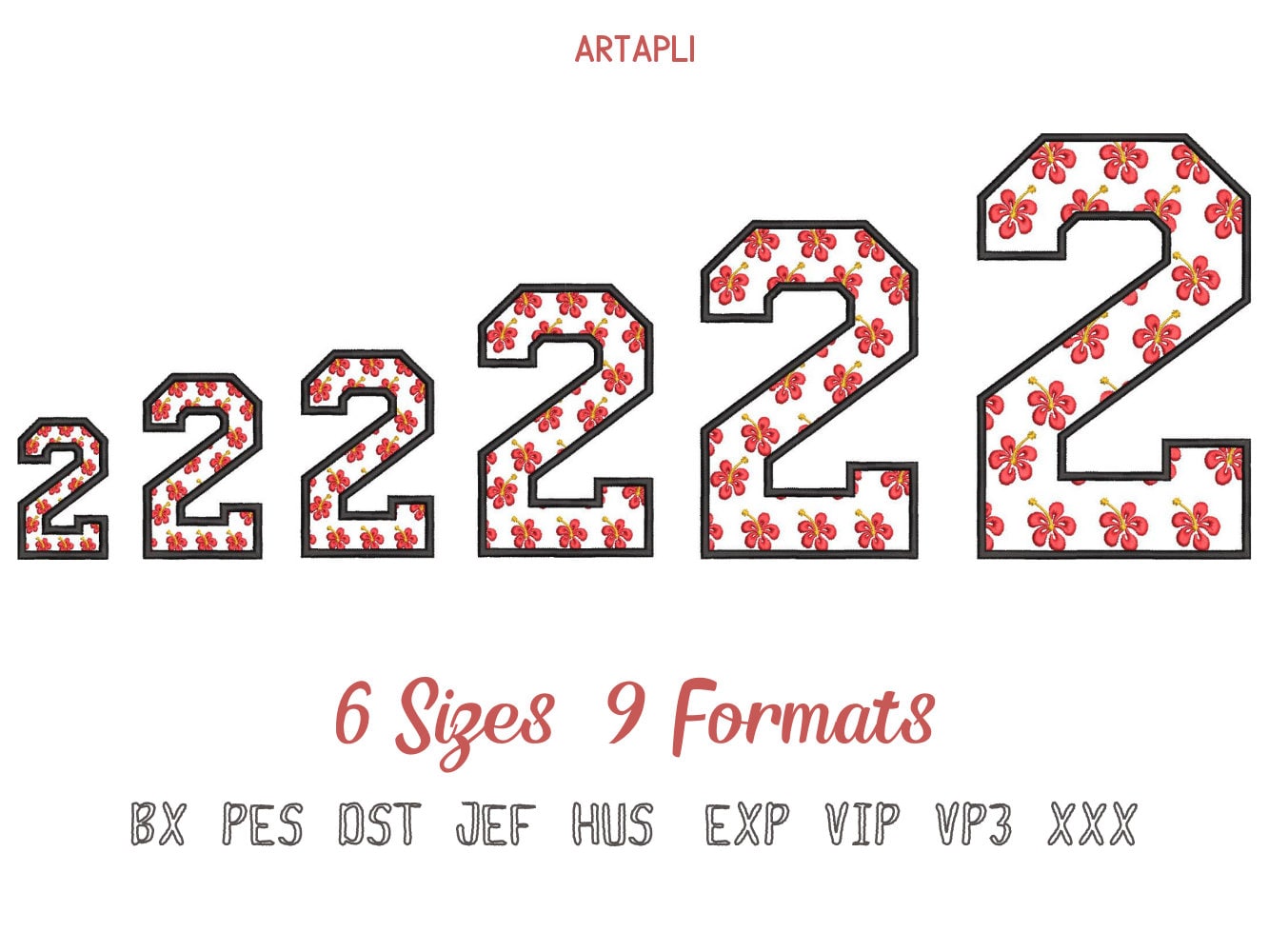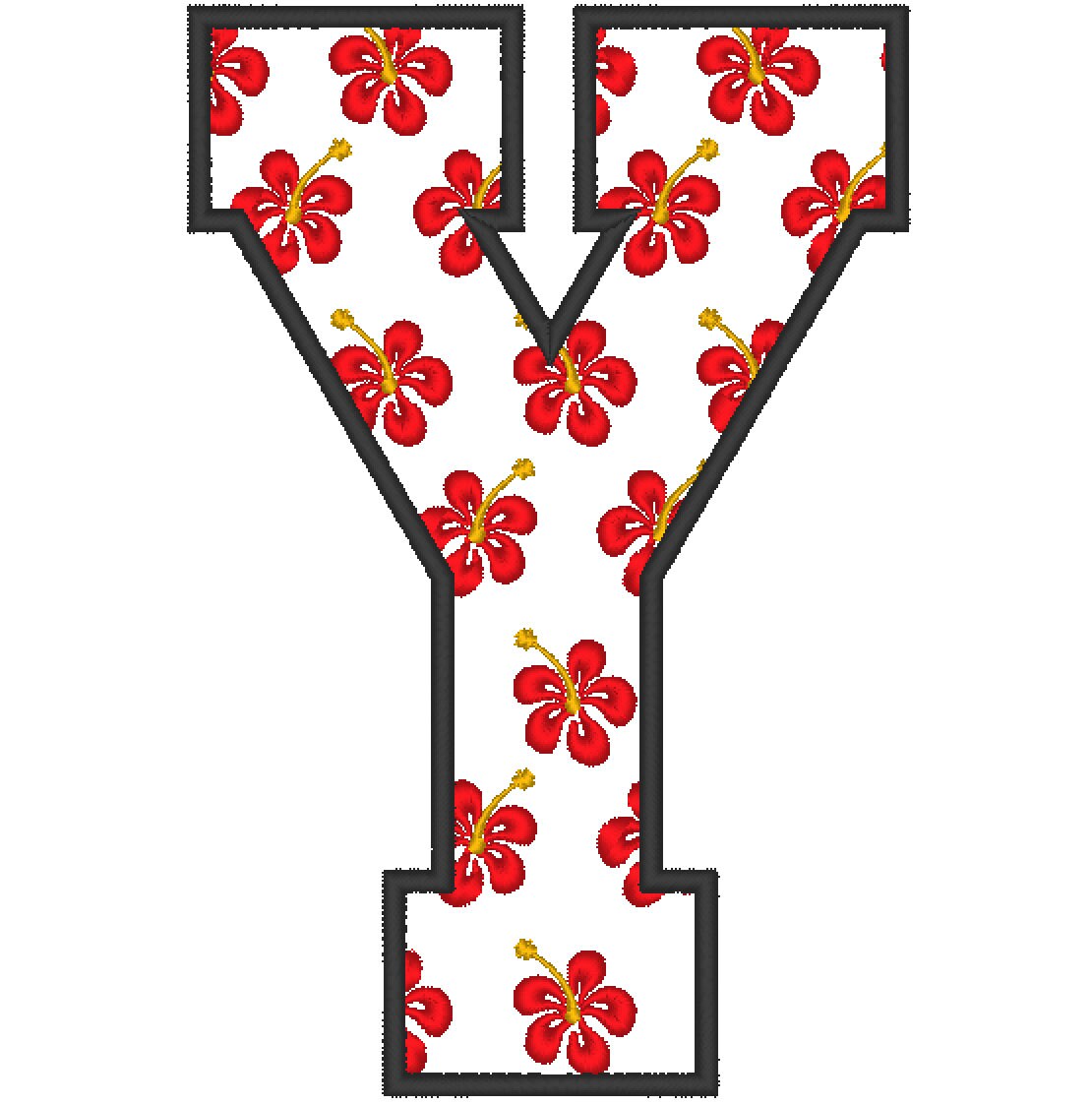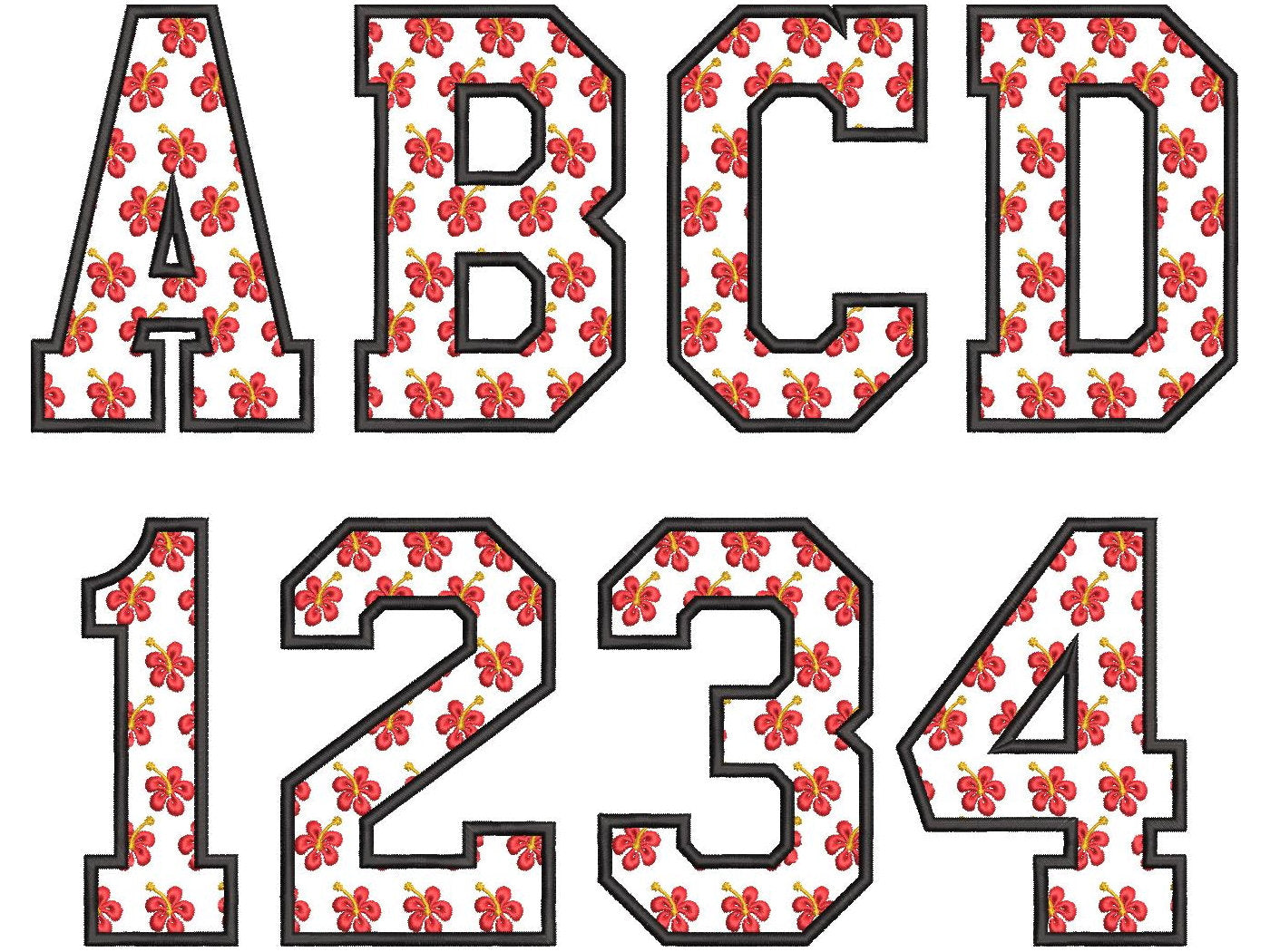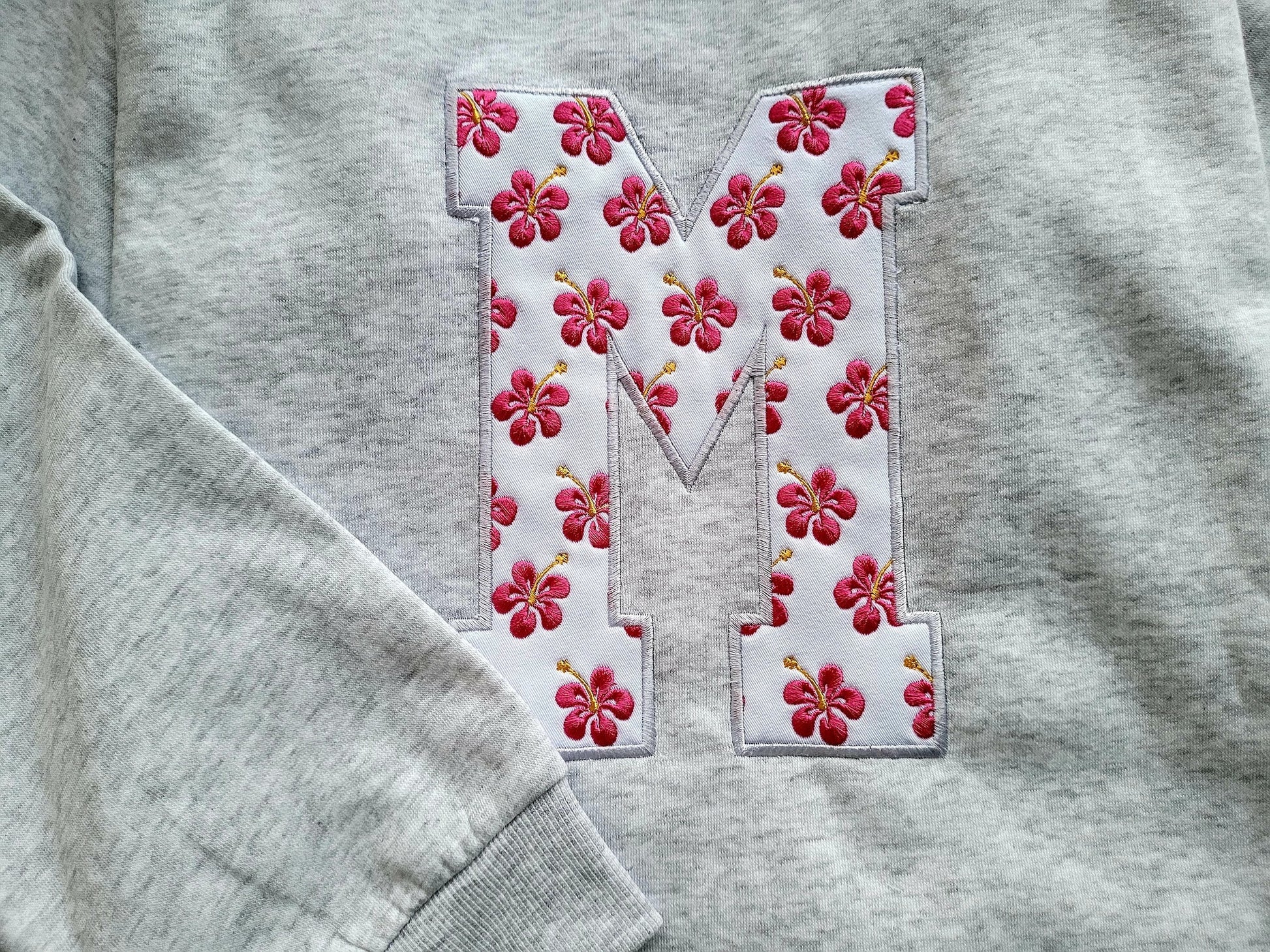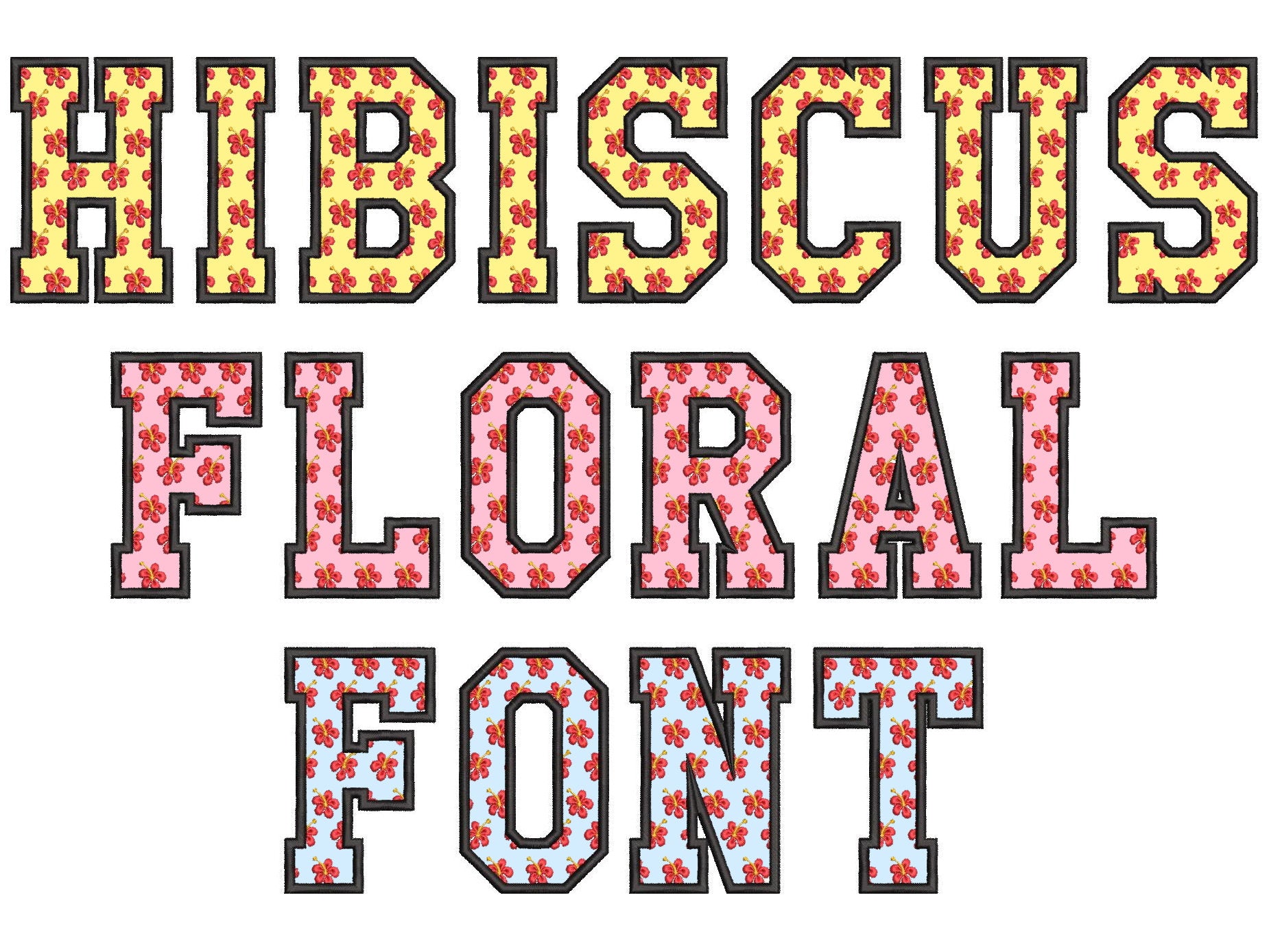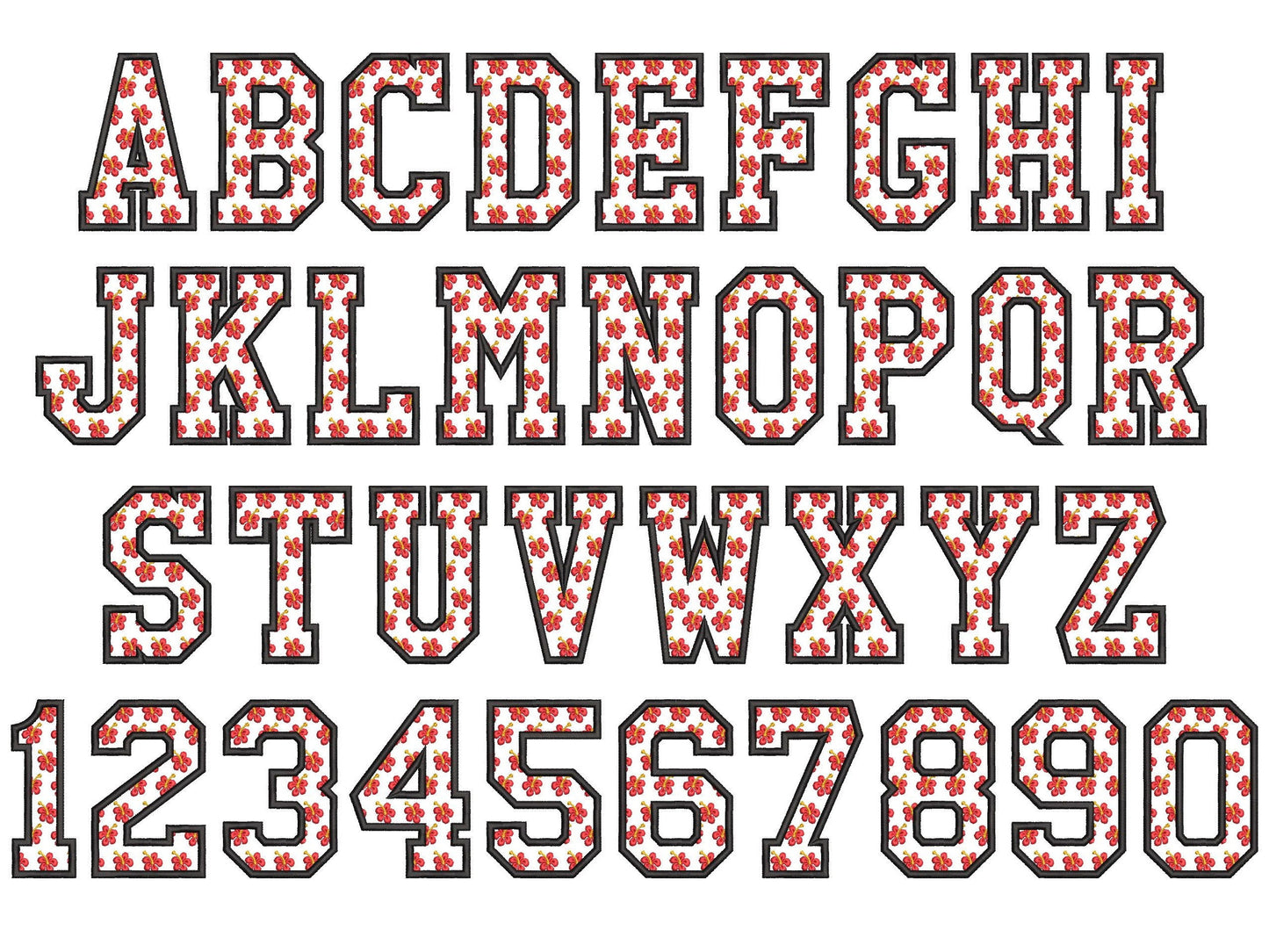
Or click to open the linkA block font filled with tiny hibiscus flowers. Bright and summery for kids' names, beach bags, towels and tropical shirts.
Uppercase letters A to Z and numbers 0 to 9 in six sizes: 2.5, 3.3, 3.7, 4.9, 6.1 and 7.6 inches. The little hibiscus flowers are part of each letter, and the font can also be stitched as applique.